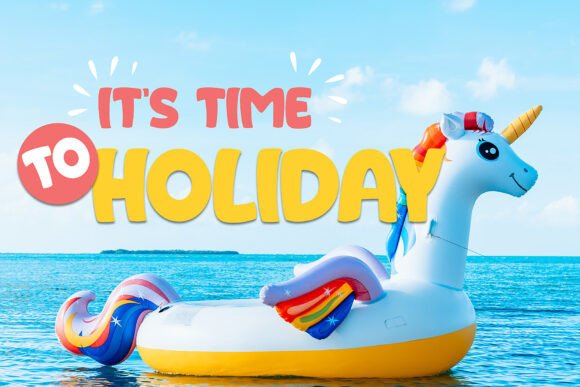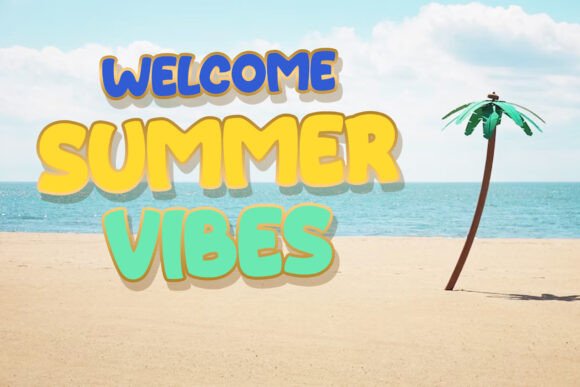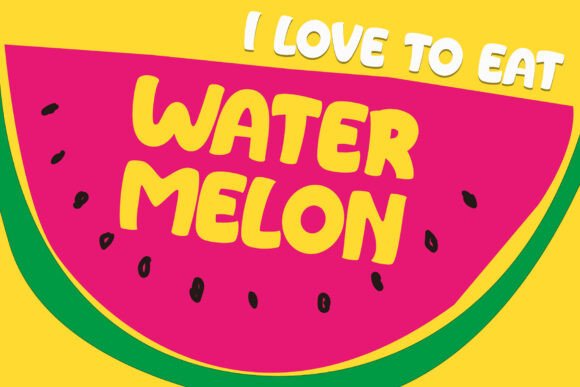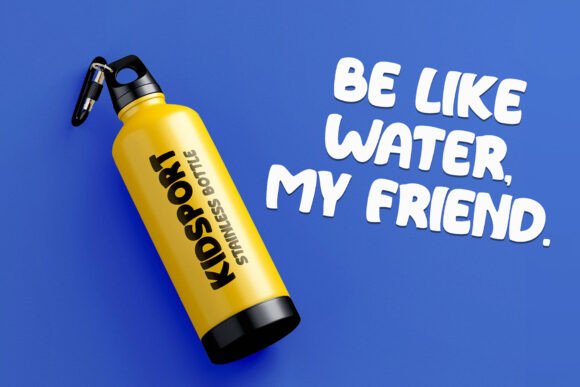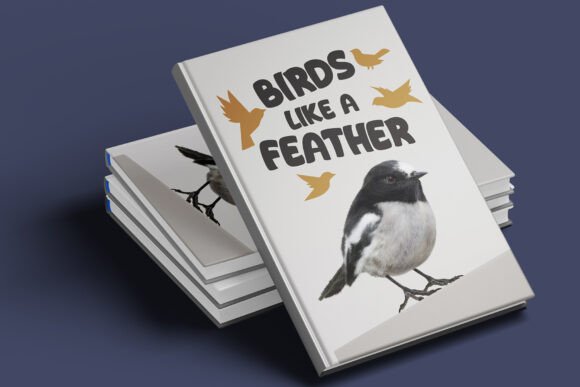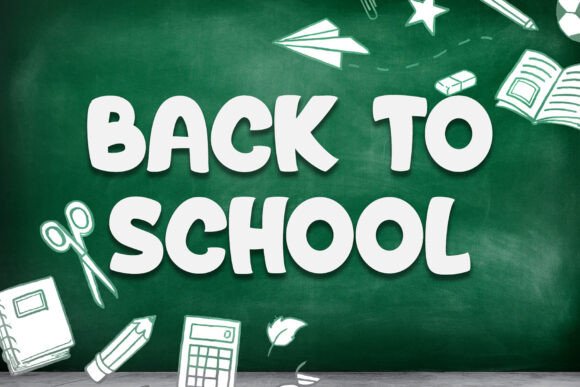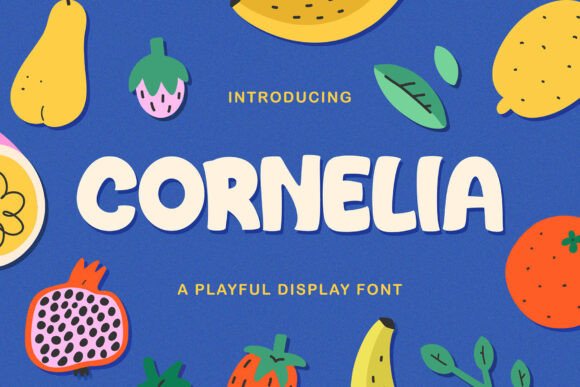
Cornelia Font: Adding a Touch of Whimsy to Your Designs
In the world of typography, fonts play a crucial role in conveying the tone and personality of a design. If you’re looking for a font that exudes joy, energy, and playfulness, look no further than Cornelia Font. This fun and quirky display font is perfect for designers and crafters who want to add a friendly and lively touch to their projects.
The Characteristics of Cornelia Font
Cornelia Font is a display font that features rounded, hand-drawn letterforms. Its unique and charming design makes it an excellent choice for projects that require a personal and approachable feel. The font’s playful and whimsical nature is sure to capture the attention of your audience and leave a lasting impression.
Cornelia Font is ideal for a wide range of creative projects, including:
- Children’s books: Add a touch of magic to your storybook with Cornelia Font’s playful and imaginative design.
- Branding and packaging: Give your brand a friendly and approachable personality with Cornelia Font’s cheerful and energetic vibe.
- Greeting cards: Make your cards stand out with Cornelia Font’s unique and whimsical design.
- Creative projects: Bring a touch of personality to your craft projects, such as scrapbooking, DIY crafts, and more.
Why Choose Cornelia Font?
So, why should you choose Cornelia Font for your next project? Here are just a few reasons:
- Unique and eye-catching design: Cornelia Font’s hand-drawn letterforms make it a one-of-a-kind font that’s sure to grab attention.
- Playful and energetic personality: This font exudes joy and playfulness, making it perfect for projects that require a friendly and approachable tone.
- Versatile: Cornelia Font can be used for a wide range of projects, from children’s books to branding and packaging.
- Easy to read: Despite its playful design, Cornelia Font is easy to read, making it perfect for body text and headlines.
Tips for Using Cornelia Font
Here are a few tips for getting the most out of Cornelia Font:
- Use it as a display font: Cornelia Font is perfect for headlines, titles, and other display text.
- Pair it with a simple font: Pair Cornelia Font with a simple font, such as Arial or Helvetica, to create a striking contrast.
- Experiment with colors: Cornelia Font looks great in bright, bold colors, so don’t be afraid to experiment and find the perfect hue for your project.
Cornelia Font is a fun and quirky display font that’s perfect for designers and crafters who want to add a touch of whimsy to their projects. With its rounded, hand-drawn letterforms and playful personality, this font is sure to bring joy and energy to any design. Whether you’re working on a children’s book, branding and packaging, or a creative project, Cornelia Font is an excellent choice. So why not give it a try and see how it can brighten up your designs?